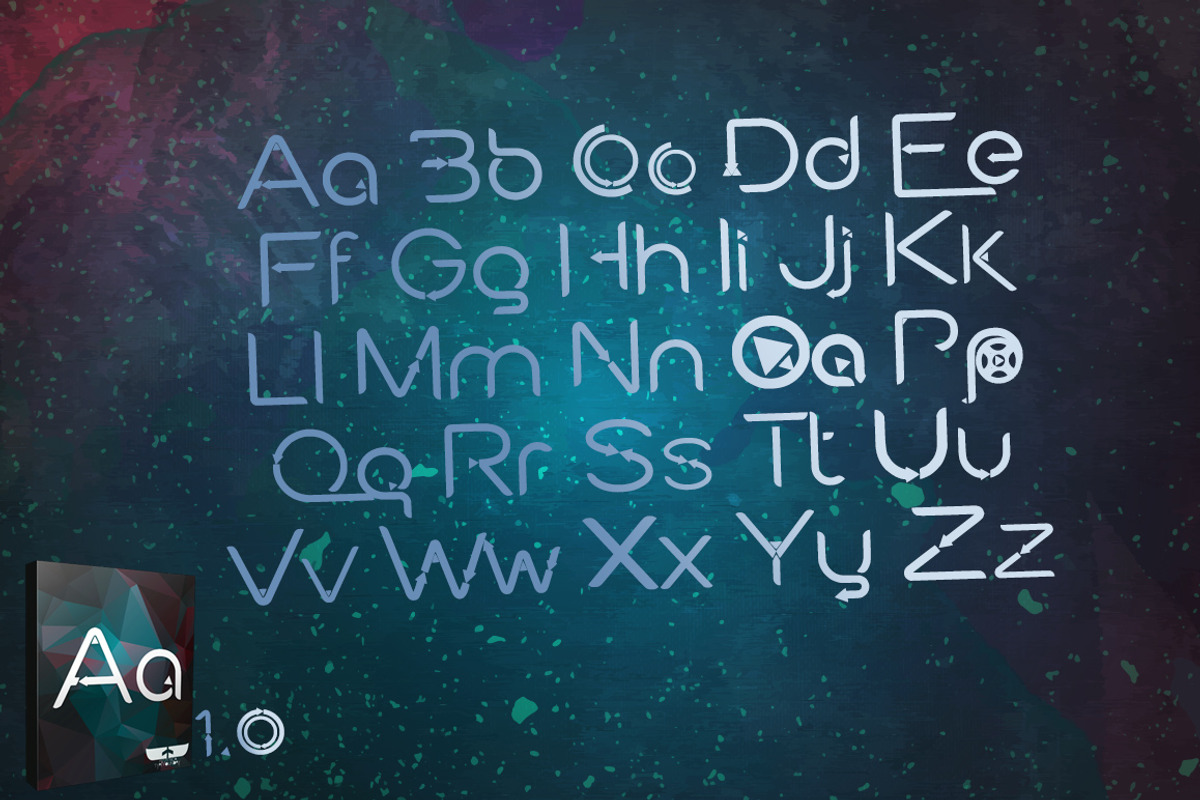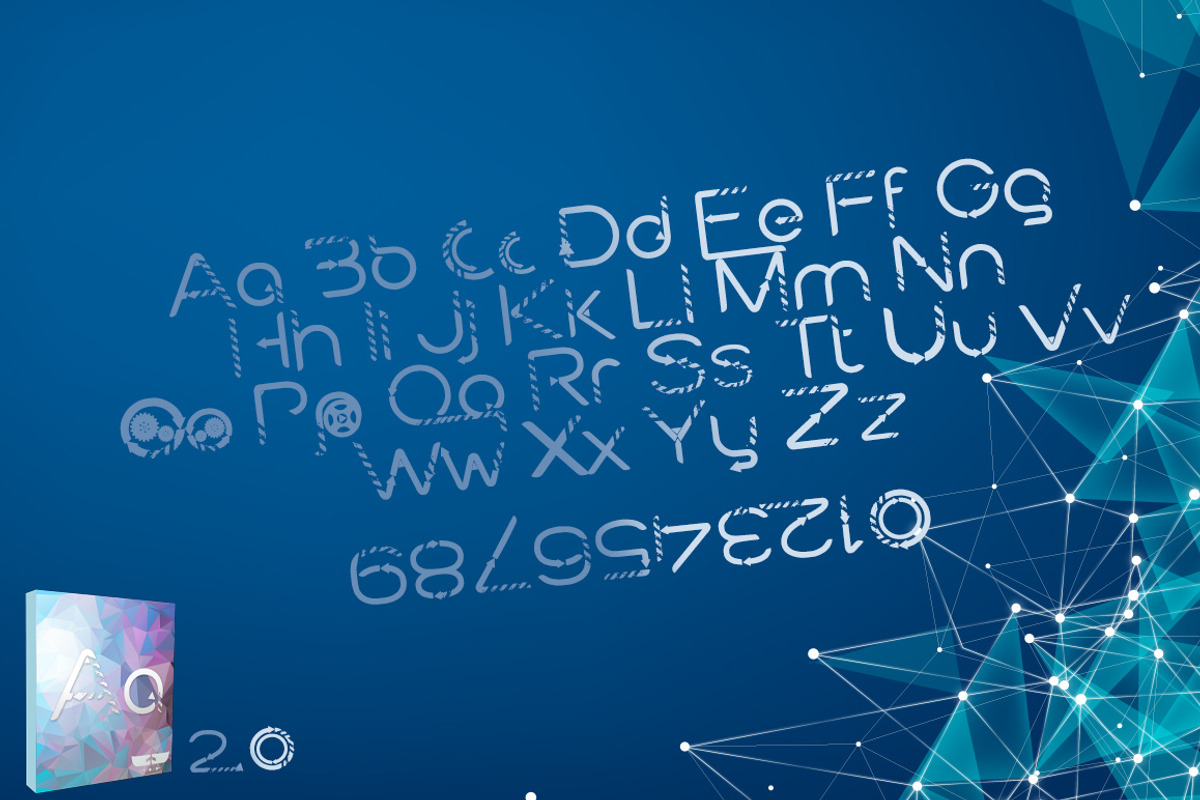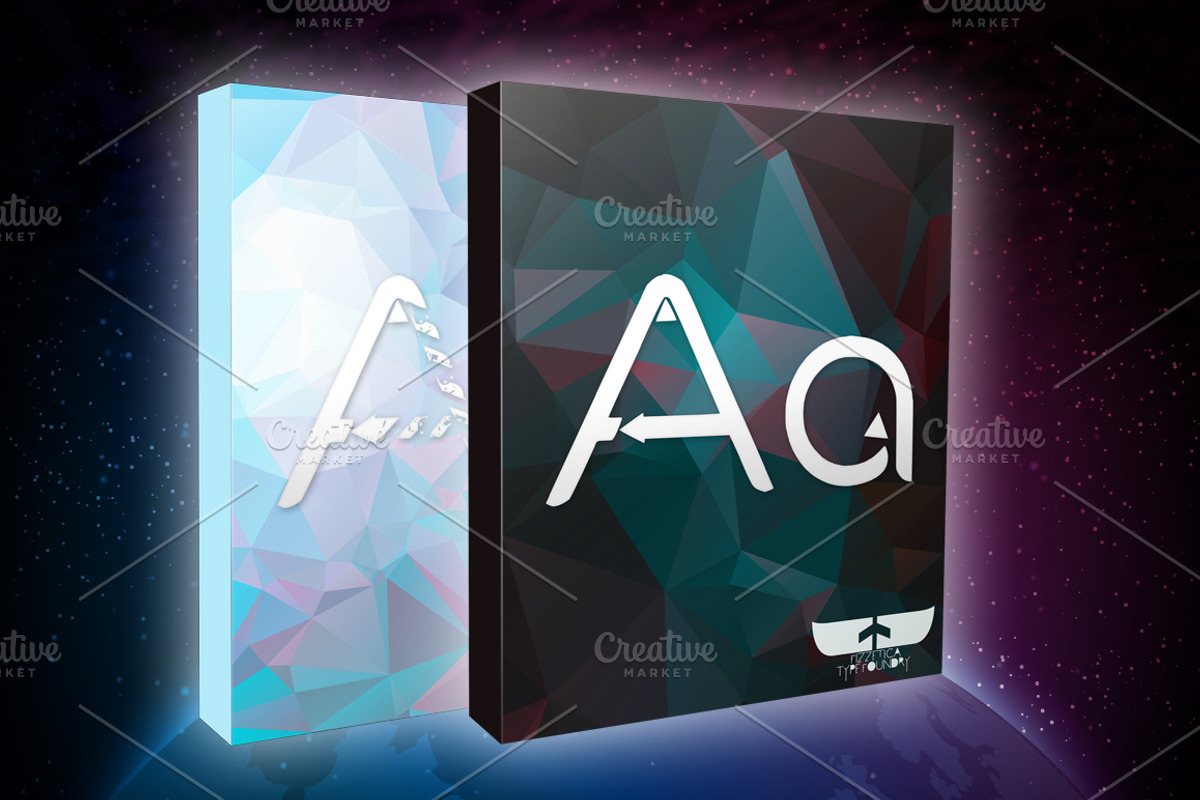
Font Bundle FTF I Robornesia
Font Bundle FTF I Robornesia by Fizzetica Typefoundry is a font selected for branding, posters, packaging, typography.
Font Bundle FTF I Robornesia by Fizzetica Typefoundry fits naturally into Branding, posters, packaging, typography.